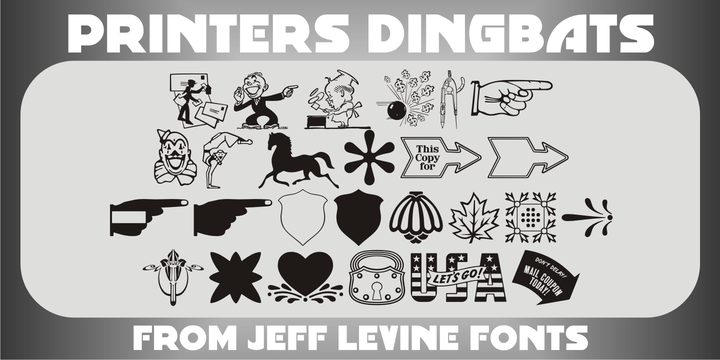
Printers Dingbats JNL
by Jeff Levine
Printers Dingbats JNL gathers another assortment of classic cartoons, borders, embellishments, sales helpers and whatnots into one digital file; all re-drawn from vintage source material.